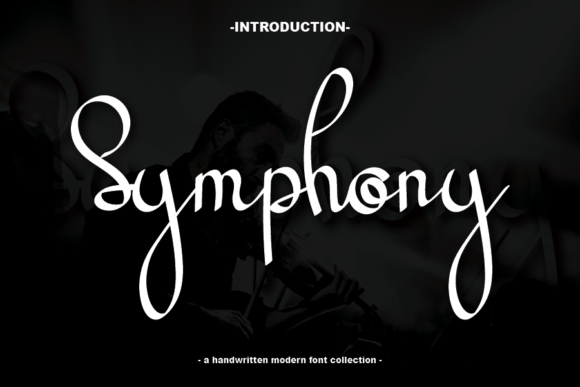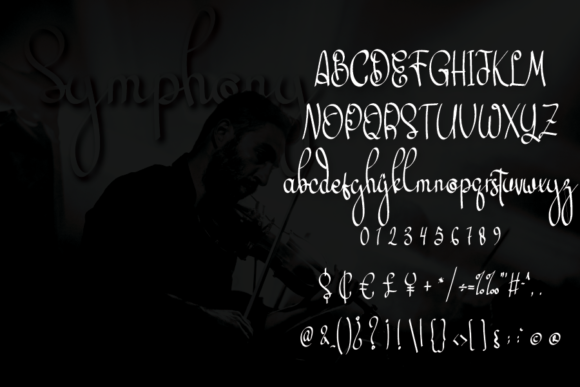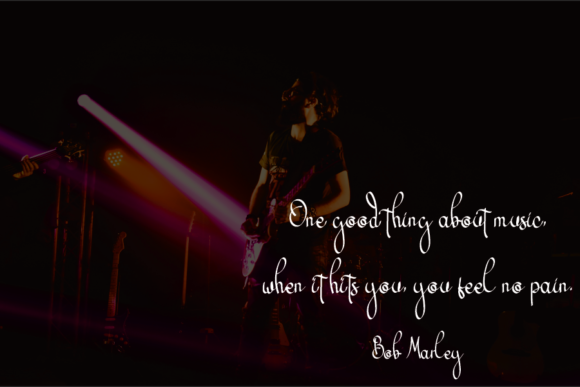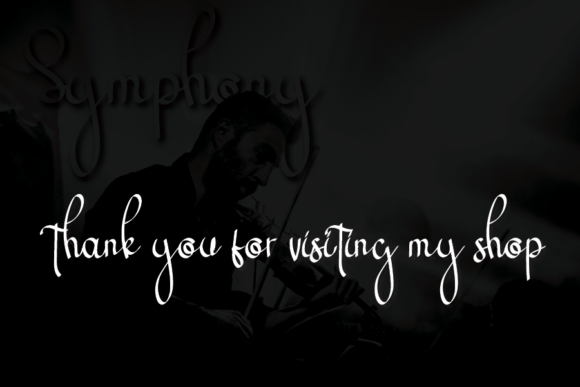
Symphony Font
About Symphony Font
Symphony is a delicate, elegant and flowing handwritten font. It has beautiful and well balanced characters and as a result, it matches a wide pool of designs.